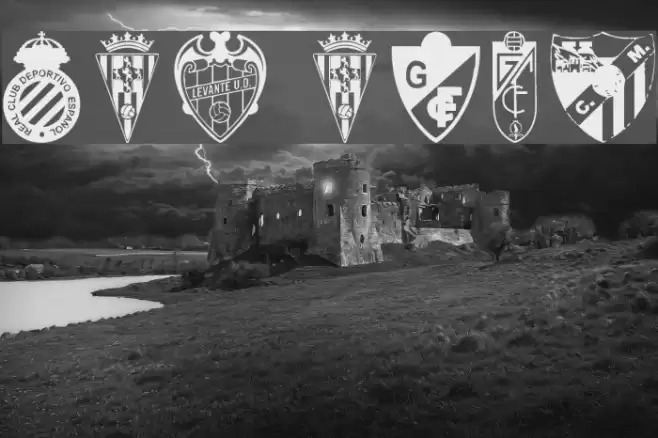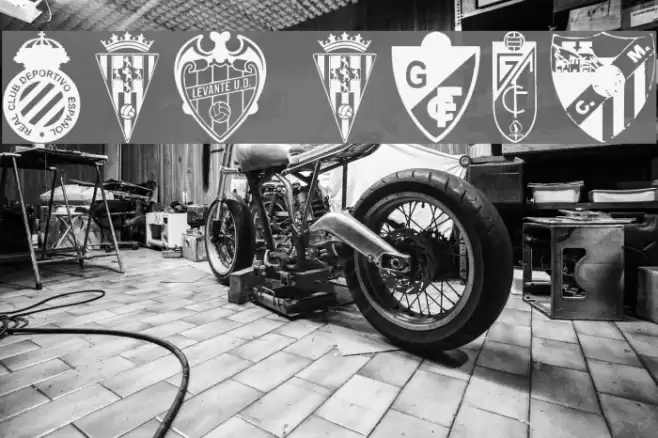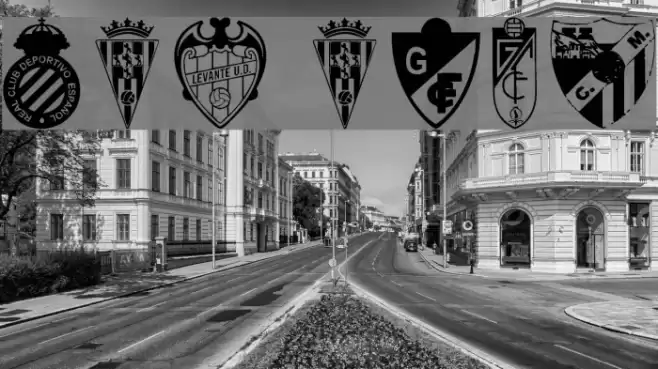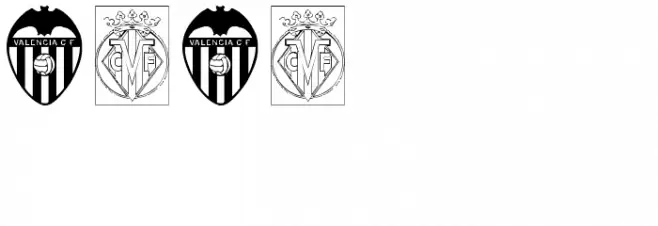
LFP Font
LFP Description
A decorative font composed of various Spanish football club logos and league emblems, each glyph represented by a unique crest or badge, resulting in a highly pictorial and emblematic style rather than traditional letterforms.
Font made up of football club logos and league emblems from Dingbats fonts.
- Proposed Projects: Sports-themed posters, event promotions, fan merchandise, football-related graphics.
- Overall Style: Decorative, Sports-themed
- Use Case: Logos, Posters, Themed Graphics